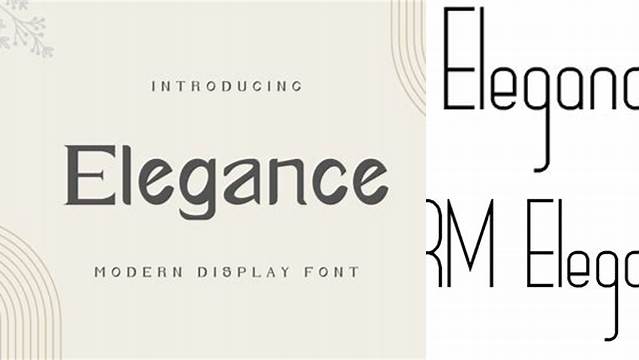
RM Elegance Font: Free Download & Usage Guide
Hey guys! Have you ever stumbled upon a font that just screams elegance and sophistication? Well, let's talk about RM Elegance Font, a typeface that has been making waves in the design world. In this comprehensive guide, we're going to dive deep into what makes this font so special, where you can find it for free (yes, you read that right!), and how you can use it to elevate your design projects. So, buckle up and let's explore the world of RM Elegance Font!
When it comes to typography, the choice of font can make or break a design. A font is more than just a way to display text; it's a crucial element that conveys the personality, tone, and overall aesthetic of a project. RM Elegance Font stands out because it perfectly balances modernity with classic charm, making it a versatile choice for a wide range of applications. Whether you're working on branding materials, website design, or even personal projects like invitations and cards, this font can add that extra touch of sophistication you've been looking for. The beauty of RM Elegance Font lies in its clean lines and graceful curves, which create a visual harmony that is both pleasing to the eye and easy to read. This makes it an excellent option for both headings and body text, giving designers the flexibility to use it in various contexts. Moreover, its elegant appearance doesn't compromise its functionality. The font maintains clarity and legibility even at smaller sizes, which is essential for ensuring a professional and polished look across all mediums. Free access to such a high-quality font is a significant advantage for designers, especially those who are just starting out or working on projects with limited budgets. This accessibility allows for more creative exploration and experimentation without the financial burden of purchasing expensive fonts. So, if you’re aiming to add a touch of class to your designs, RM Elegance Font is definitely worth exploring.
What Makes RM Elegance Font So Special?
So, what exactly makes RM Elegance Font so special? Let's break it down. First off, the design itself is a masterpiece. It's got this incredible balance between modern and classic elements, which means it can fit into a ton of different design styles. Think about it – you could use it for a sleek, contemporary website or for a more traditional, formal invitation. That's the kind of versatility we love to see!
But it's not just about looks, guys. The font is also super readable, which is, you know, kind of important! No one wants a font that looks pretty but is a pain to actually read. RM Elegance Font nails this balance perfectly. The clean lines and well-proportioned characters make it easy on the eyes, whether you're using it for headings, body text, or even smaller details. This legibility is a key factor in its popularity among designers. A font that's both beautiful and functional is a rare gem, and RM Elegance Font certainly fits the bill. The font’s elegance doesn't come at the expense of practicality, which is a common pitfall for many stylish typefaces. It maintains its clarity across different mediums, whether it's displayed on a screen or printed on paper. This consistency is crucial for branding, where a consistent visual identity is paramount. Imagine a logo that looks stunning on a website but becomes illegible on a business card – that’s a design disaster waiting to happen. With RM Elegance Font, you can rest assured that your text will look polished and professional no matter where it's used. This reliability, combined with its aesthetic appeal, makes it a top choice for designers looking to make a lasting impression. Furthermore, the font's adaptability means it can be used in a wide array of projects, from digital designs to print materials, without losing its impact. It's this blend of versatility, legibility, and elegance that truly sets RM Elegance Font apart.
How to Use RM Elegance Font in Your Designs
Alright, you've got RM Elegance Font downloaded and ready to go. Now, let's talk about how to actually use it in your designs. This font is so versatile that you can use it for just about anything, but here are a few ideas to get your creative juices flowing.
So, there you have it – a comprehensive guide to RM Elegance Font. We've covered what makes it special, where to find it for free, and how to use it in your designs. Now it's time for you to go out there and start creating! Remember, the right font can make all the difference, and RM Elegance Font is definitely a contender for adding that extra touch of elegance to your projects. Happy designing, guys!